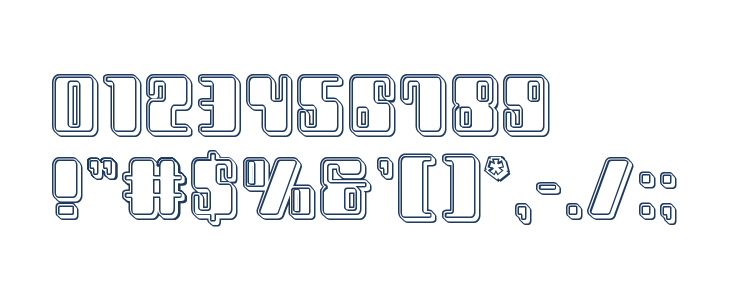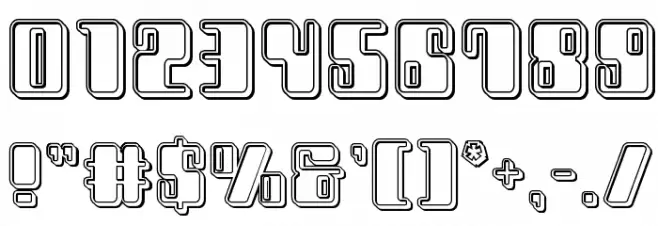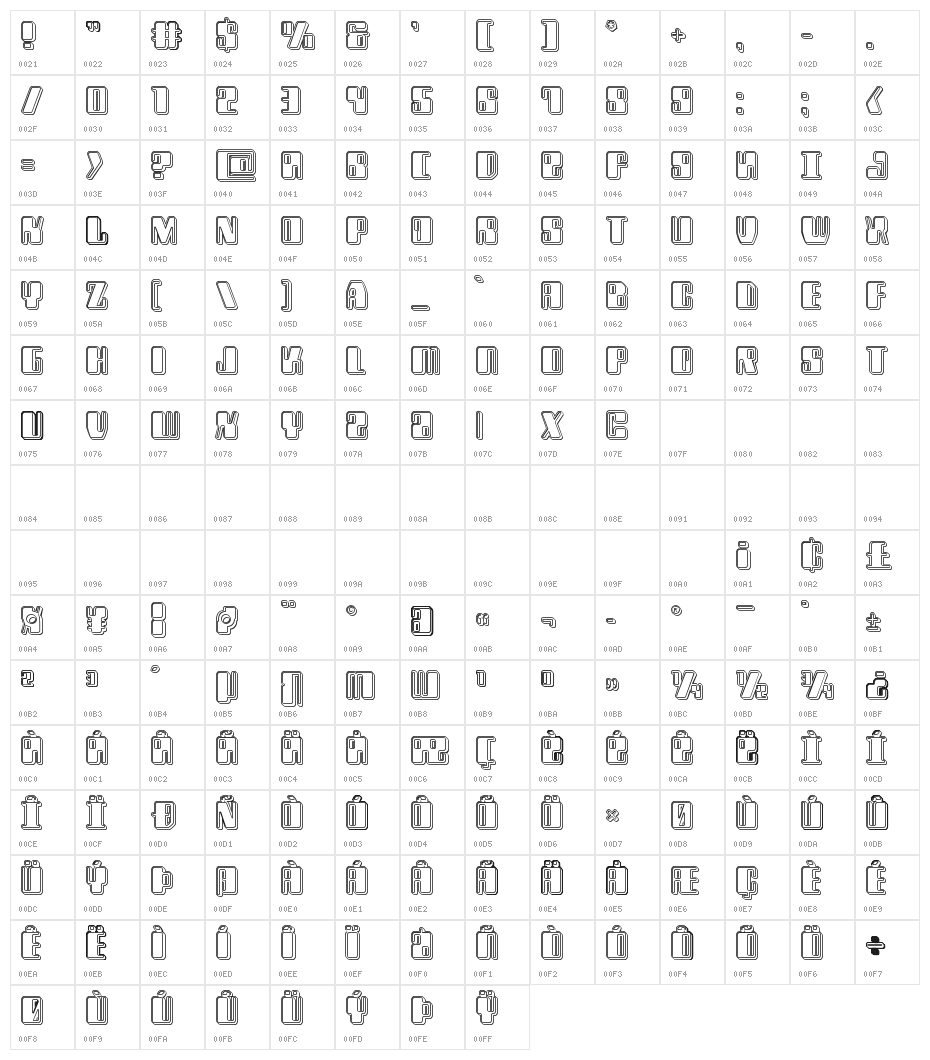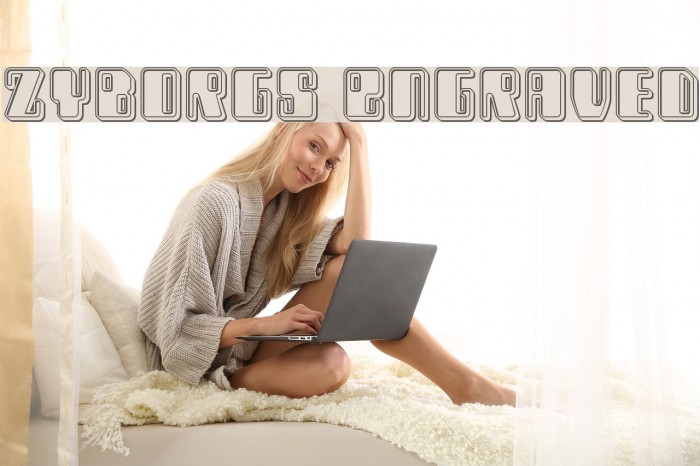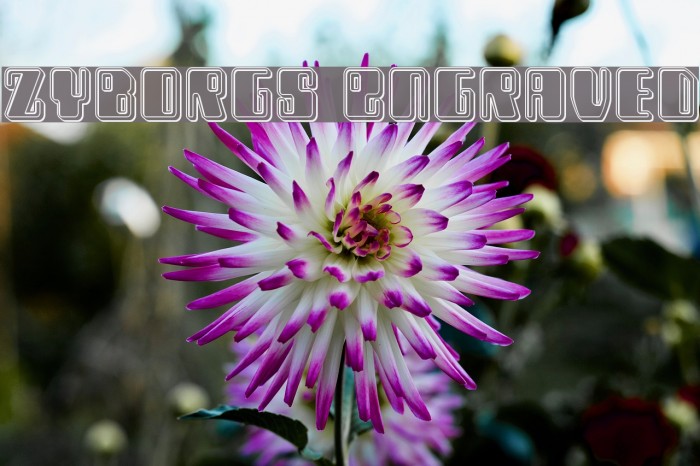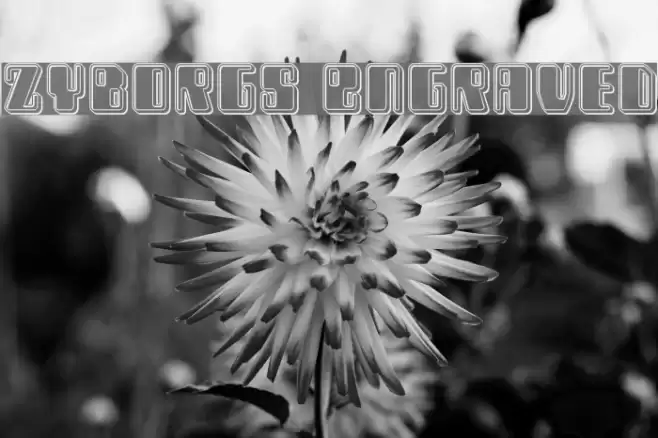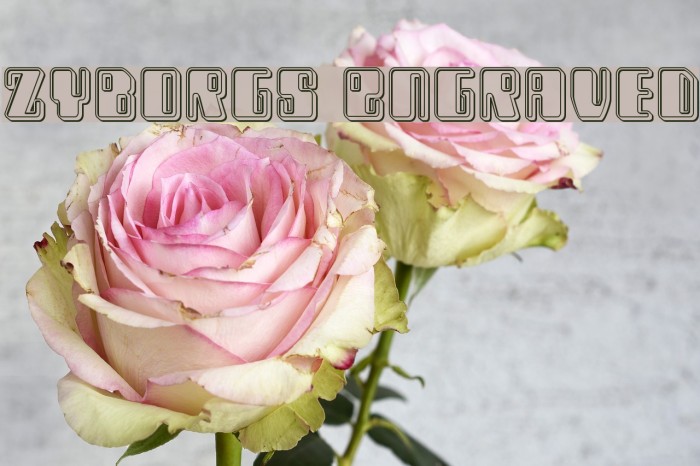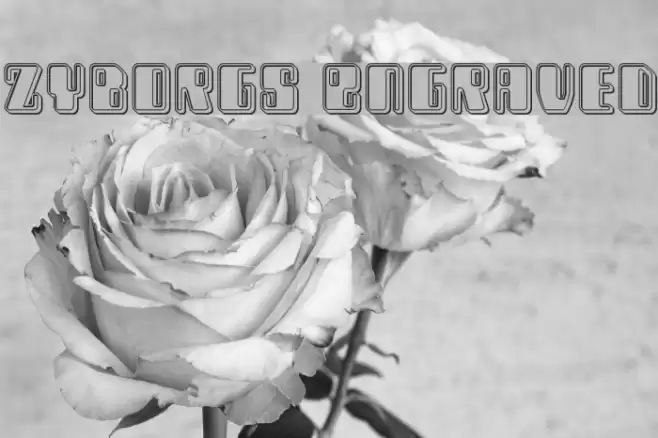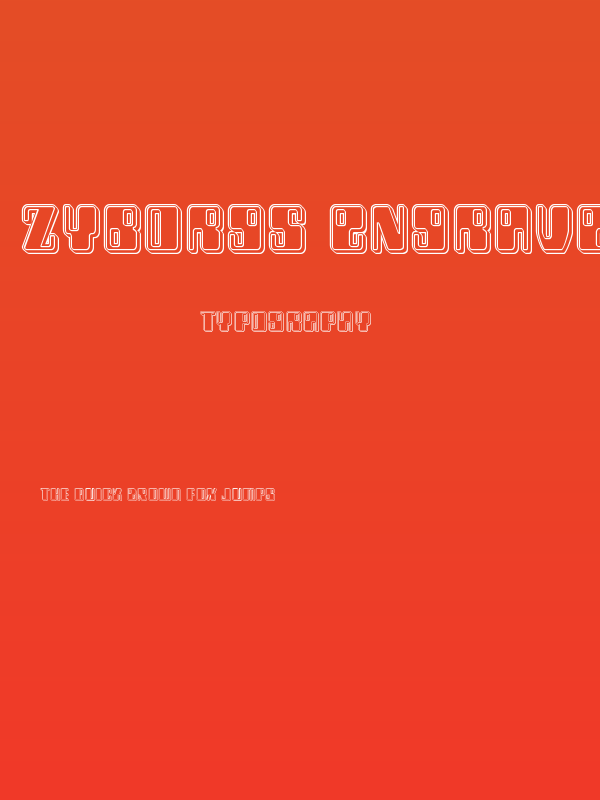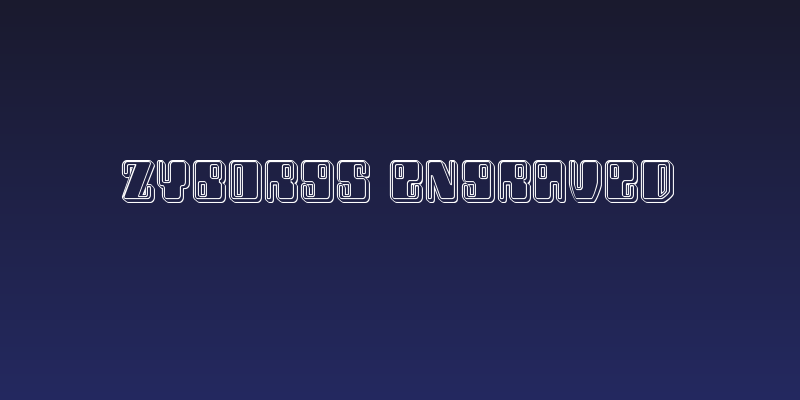
Zyborgs Engraved Font
Zyborgs Engraved Description
This font features a bold, futuristic design with an engraved effect that gives it a three-dimensional appearance. The characters are outlined with a double line, creating a sense of depth and structure. The geometric shapes are consistent across both uppercase and lowercase letters, as well as numbers and special characters. The style is highly decorative, making it stand out in any design. The font's unique aesthetic is suitable for projects that require a modern and edgy look, such as technology-related branding, sci-fi themed posters, or video game titles.
| Proposed Projects | Ideal for technology branding, sci-fi posters, video game titles, and modern graphic designs. |